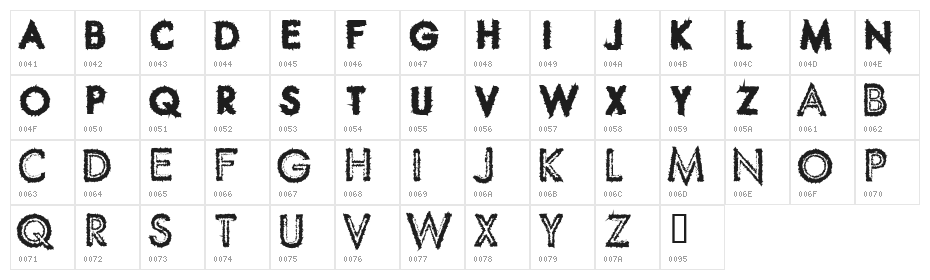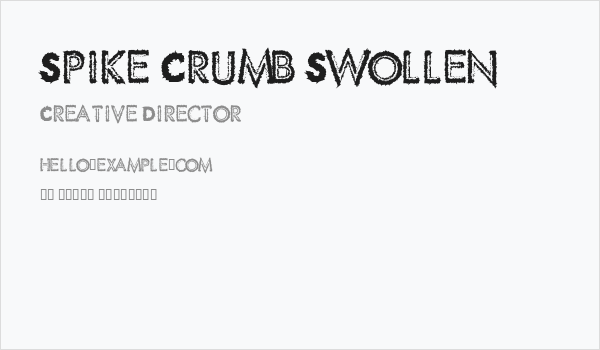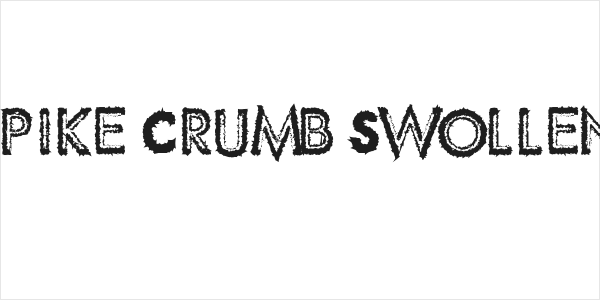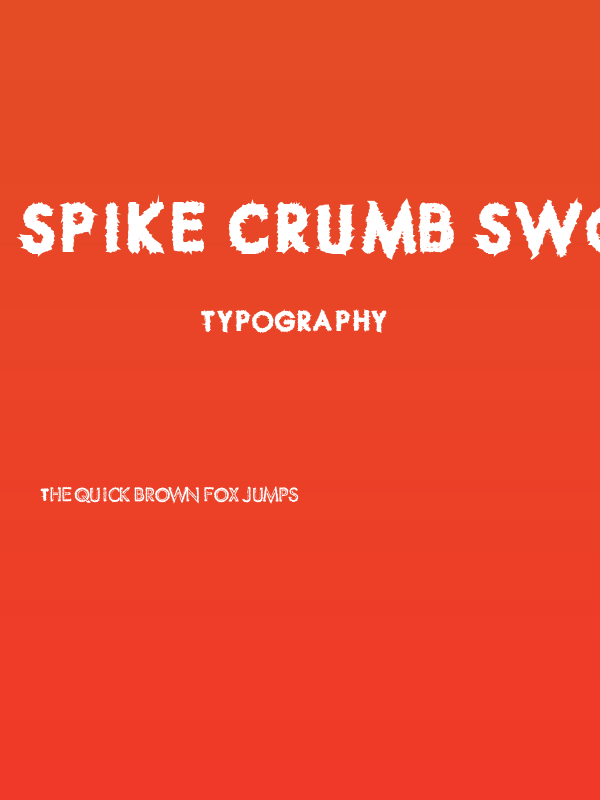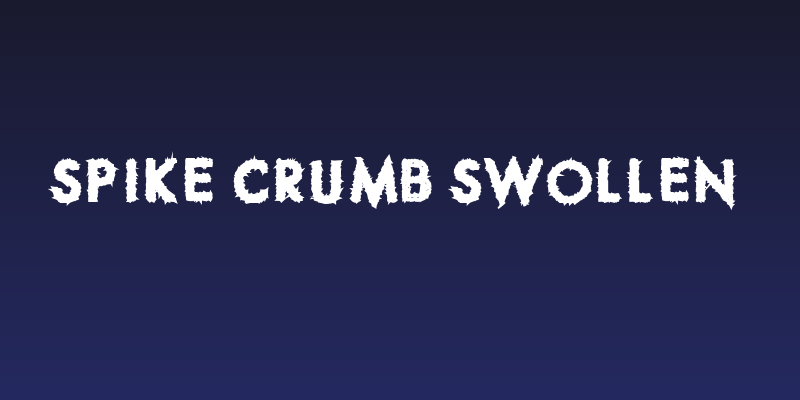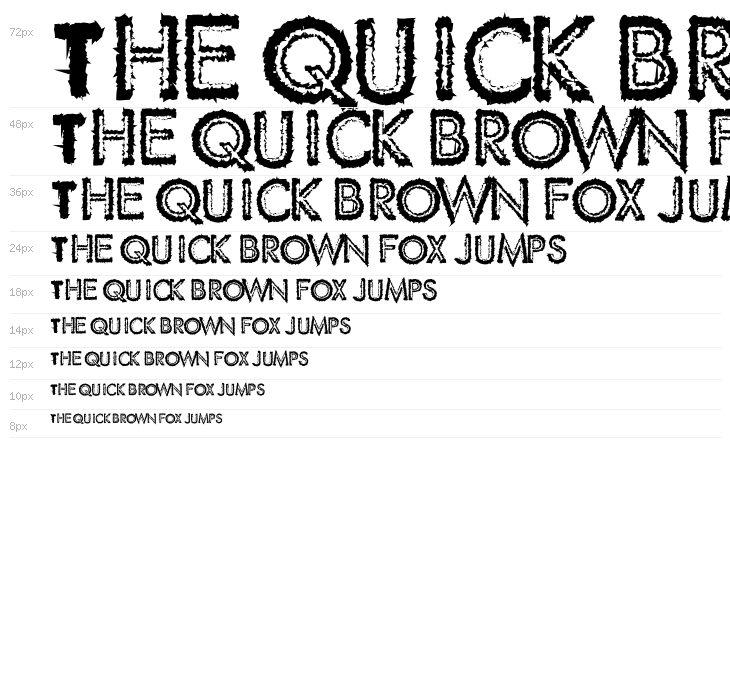
Spike Crumb Swollen Font
Spike Crumb Swollen Description
This font features a unique and edgy design with a spiky, crumbly texture that gives each character a swollen appearance. The bold strokes and irregular edges create a sense of movement and energy, making it stand out in any design. The uppercase letters are particularly striking, with their jagged outlines and bold presence. This font is perfect for projects that require a dramatic and eye-catching look, such as posters, album covers, or branding for edgy products. Its distinctive style is sure to capture attention and convey a sense of boldness and creativity.
Proposed ProjectsIdeal for posters, album covers, edgy branding, and creative designs.